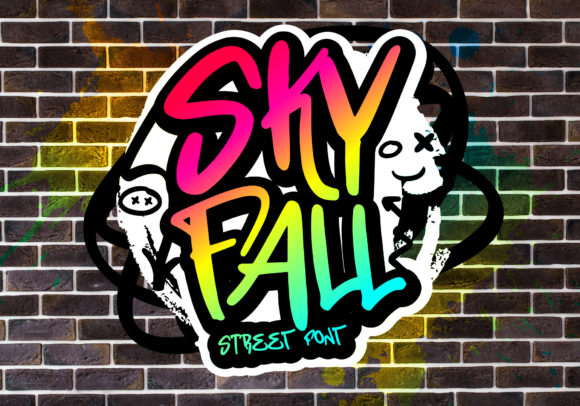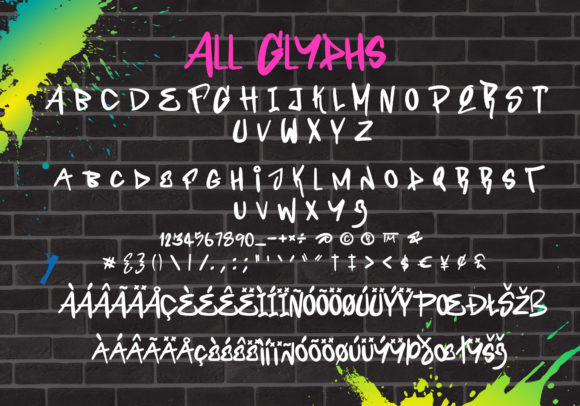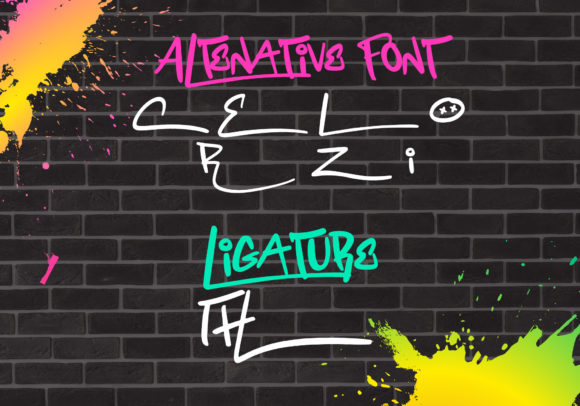
Sky Fall Font: Bold Graffiti Display Font for Creative Designs!
About the Sky Fall Font
Get ready to be inspired by Sky Fall Font, a fresh and dynamic typeface for modern creators. Sky Fall is an awesome, graffiti-styled display font that has a street art vibe. This font is suitable for designs such as t-shirts, sportswear, logos, advertisements, clothing, and more.
Sky Fall Font Usage Examples
Sky Fall Font Example